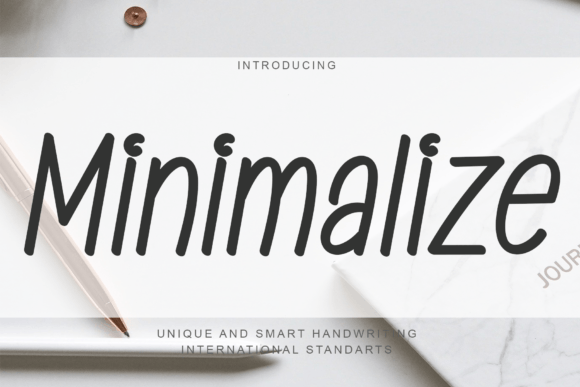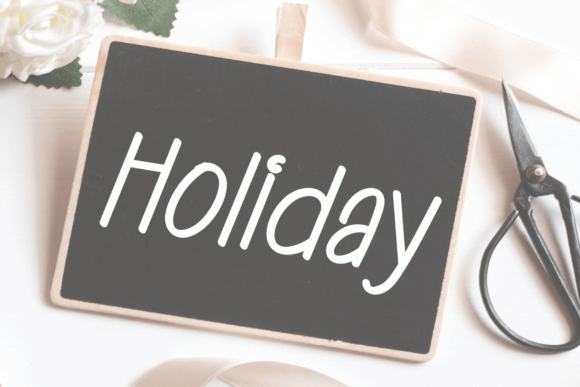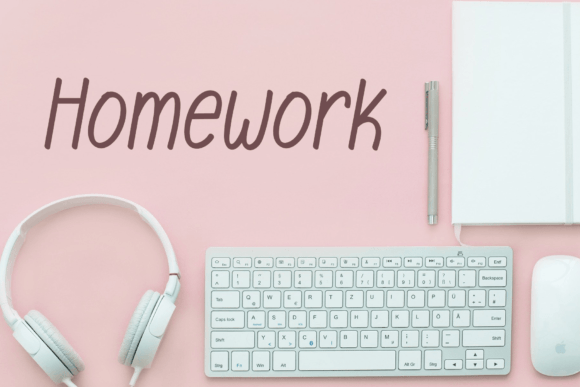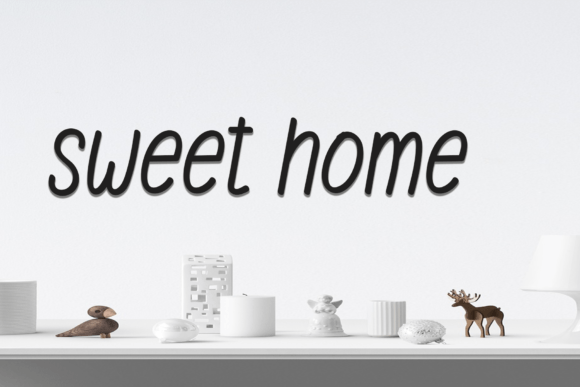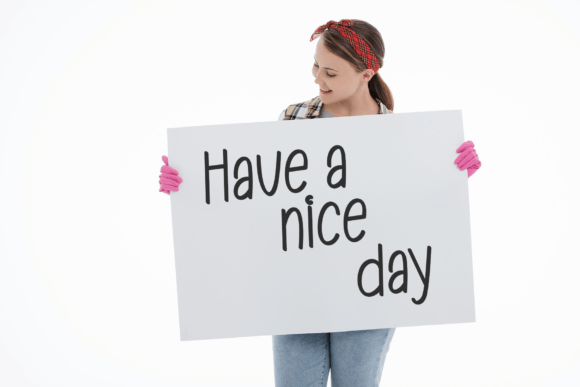
Minimalize Font
About Minimalize Font
“Minimalize” is not just a font; it’s a fancy handwritten typeface meticulously designed to inspire creativity in your work. With its stylish and minimalistic aesthetic, this font is well-suited for a variety of design applications, including logo design, social media graphics, movie titles, book titles, and more. Unlock the potential for stunning and visually appealing work by incorporating the Minimalize font into your creative projects.
The fancy handwritten style of Minimalize adds a unique and artistic touch to your designs. Its simplicity and elegance contribute to a modern and sophisticated aesthetic, making it suitable for projects that require a clean and minimalistic approach.
In logo design, Minimalize becomes a versatile tool to communicate simplicity, creativity, and a modern edge. The handwritten elements add a personalized touch, making your brand identity stand out with a stylish and contemporary vibe.
For social media graphics, where visual appeal is crucial, Minimalize font shines. Whether used for Instagram posts, Facebook covers, or other social media visuals, the font brings a sense of sophistication and creativity, enhancing your online presence and leaving a lasting impression.
Movie titles and book titles benefit from the sleek and minimalistic design of Minimalize. The font’s aesthetic can transform titles into eye-catching and memorable elements, setting the tone for the content and adding a touch of modernity.
The versatility of Minimalize font extends to various creative projects, allowing you to explore its potential in different contexts. Its suitability for a range of applications makes it a valuable asset for designers seeking to achieve a balance of simplicity and elegance in their work.
In conclusion, Minimalize font is more than just a typeface; it’s a design asset that encourages a minimalist and creative approach to your projects. Whether you’re working on logos, social media graphics, movie titles, or book titles, let Minimalize be the elegant and fancy element that elevates your work, enabling you to produce stunning and captivating designs.